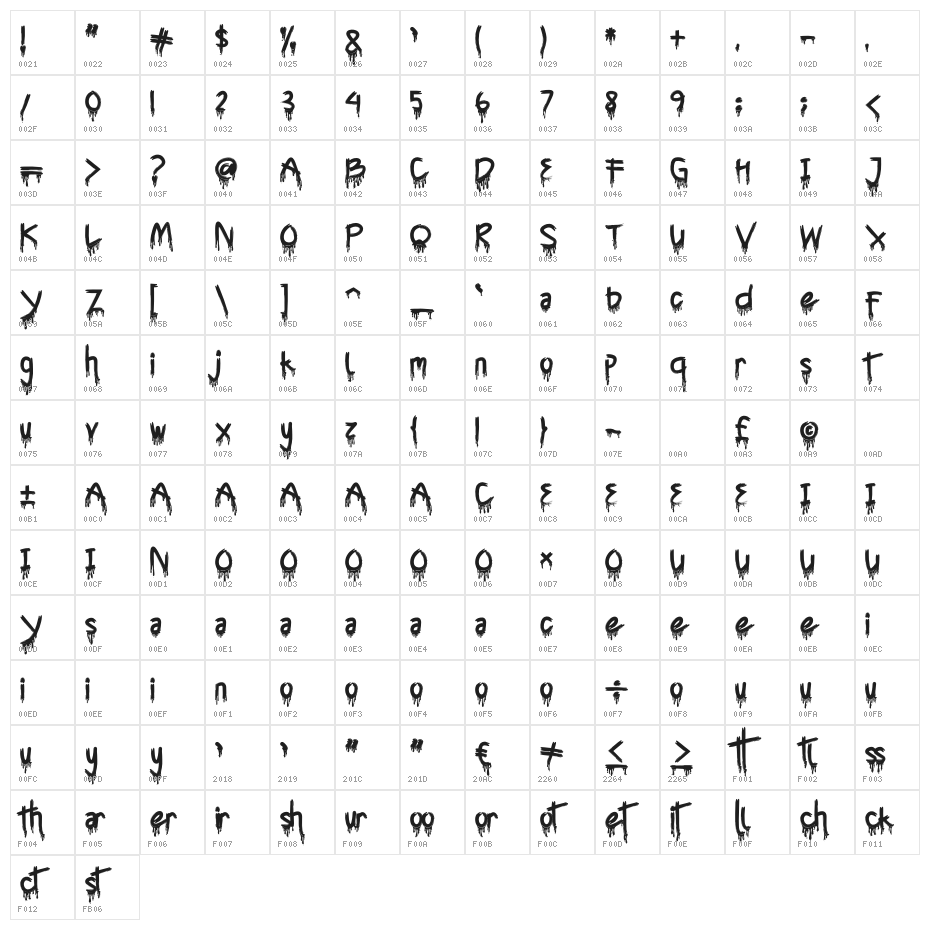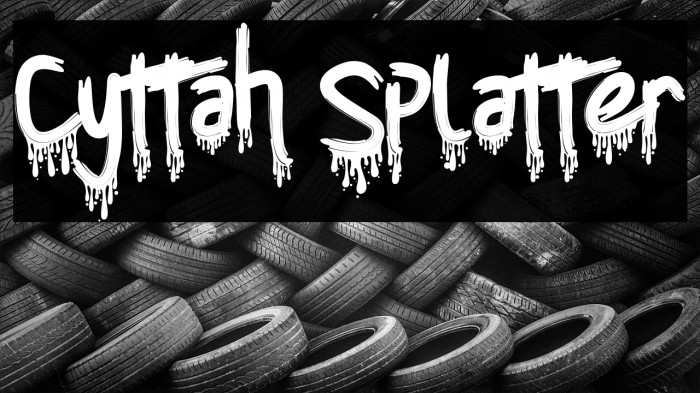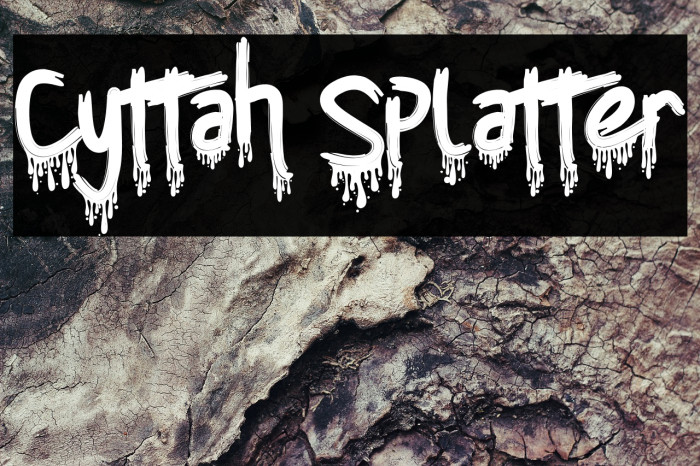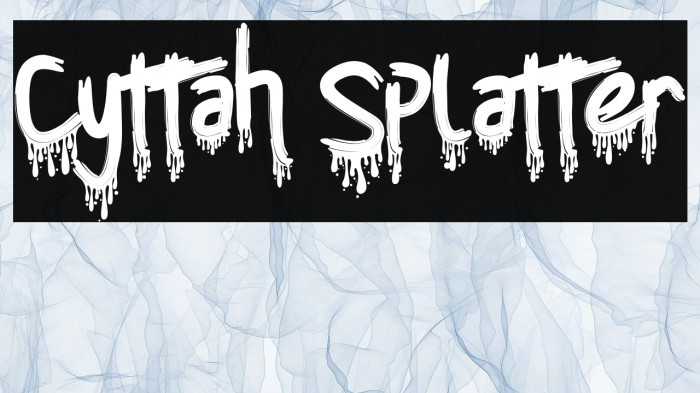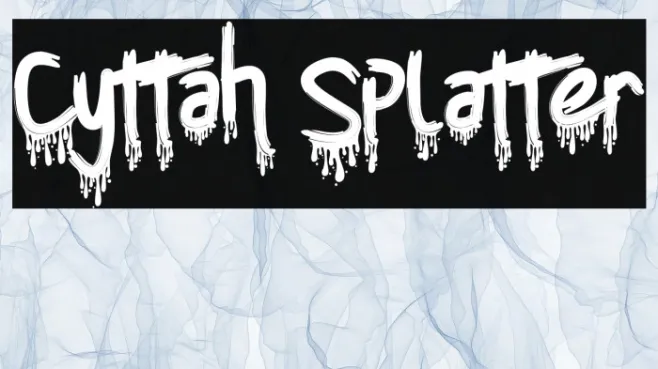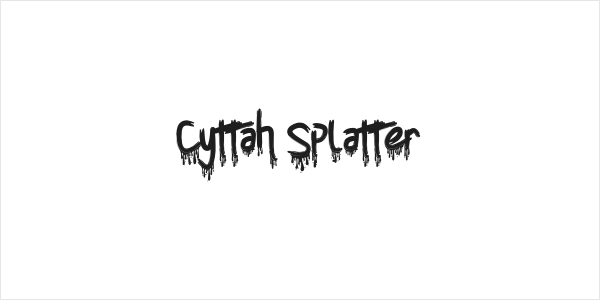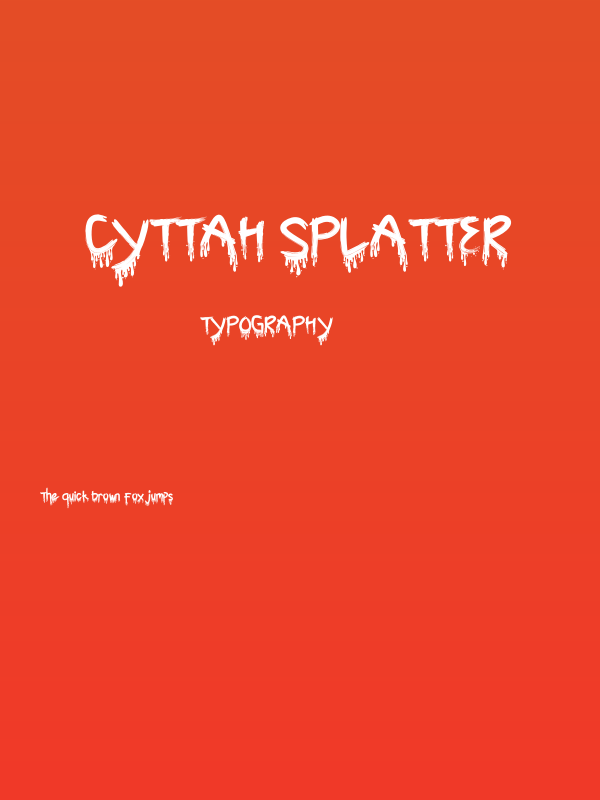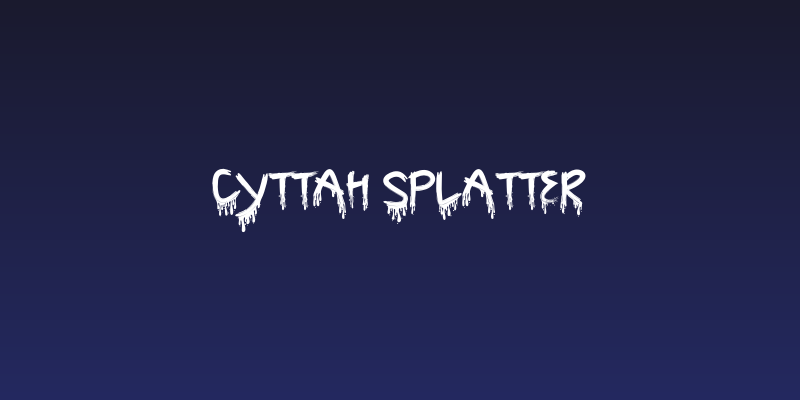
Cyttah Splatter Font
Cyttah Splatter Description
This font features a dramatic and edgy design, characterized by its dripping, splattered effect that gives each character a unique, grunge-like appearance. The uppercase and lowercase letters, along with numbers and special characters, all share this distinctive style, making it ideal for projects that require a bold and unconventional look. The strokes are uneven, with a high contrast between thick and thin areas, enhancing the chaotic and artistic vibe. This font is perfect for creating eye-catching headlines, posters, or any design that aims to convey a sense of rebellion or creativity.
| Proposed Projects | Ideal for horror-themed posters, edgy album covers, or rebellious fashion branding. |